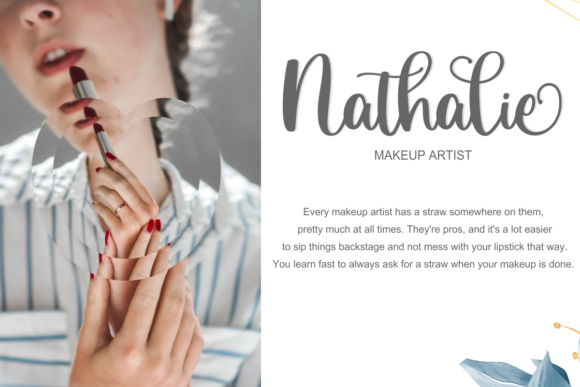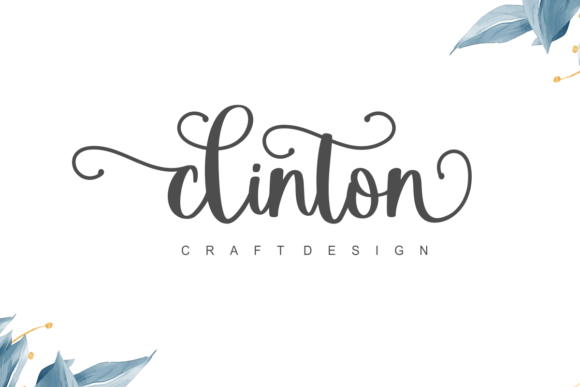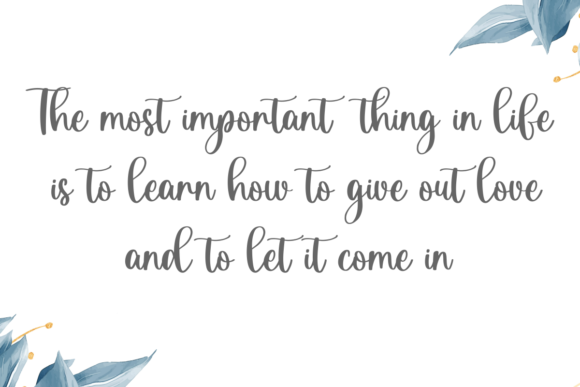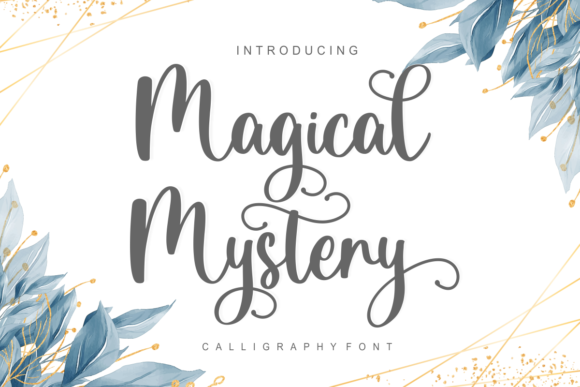
Introduction to Magical Mystery Font
Magical Mystery is a magical handwritten font carefully created with a touch of elegance.
Whether you’re looking for fonts for Instagram or calligraphy scripts for DIY projects, this font will turn any creative idea into a true piece of art This font is PUA encoded which means you can access all of the glyphs and swashes with ease.
Key Features of Magical Mystery Font
Why Choose Magical Mystery Font?
Magical Mystery Font offers exceptional quality and versatility, making it a valuable addition to your design toolkit. Whether you’re creating for personal projects or commercial use, Magical Mystery Font delivers professional results.